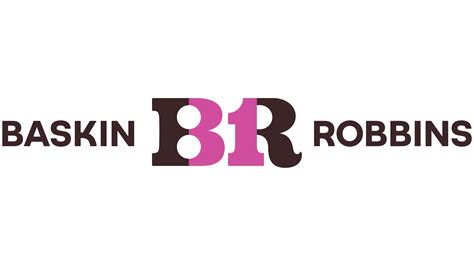
Baskin Robbins Font . Browse by alphabetical listing, by style, by author or by popularity. The font is very similar to variex regular, a commercial font that you can purchase and.
The font is very similar to variex regular, a commercial font that you can purchase and. See how the logo reflects the brand's history,. Web what font does baskin robbins use?
Web the font used for baskin robbins logo is variex bold, which is a display sans serif font designed by rudy vanderlans & zuzana licko and published by emigre. Web learn about the origin and evolution of the baskin robbins logo, the iconic ice cream brand with 31 flavors. Browse by alphabetical listing, by style, by author or by popularity. Web archive of freely downloadable fonts.
Baskin Robbins Font - The font is very similar to variex regular, a commercial font that you can purchase and. Browse by alphabetical listing, by style, by author or by popularity. Web what font does baskin robbins use? Web learn about the origin and evolution of the baskin robbins logo, the iconic ice cream brand with 31 flavors. Web archive of freely downloadable fonts.
Baskin Robbins Font - Web archive of freely downloadable fonts. Web learn about the origin and evolution of the baskin robbins logo, the iconic ice cream brand with 31 flavors. The closest font you can get for the baskin robbins logo is variex regular font. Web the font used for baskin robbins logo is variex bold, which is a display sans serif font designed.
Baskin Robbins Font - Web archive of freely downloadable fonts. The font is very similar to variex regular, a commercial font that you can purchase and. See how the logo reflects the brand's history,. Web learn about the origin and evolution of the baskin robbins logo, the iconic ice cream brand with 31 flavors. Web the font used for baskin robbins logo is variex.
Baskin Robbins Font - The closest font you can get for the baskin robbins logo is variex regular font. Web archive of freely downloadable fonts. See how the logo reflects the brand's history,. The brand is known for its “31 flavors” slogan. Web what font does baskin robbins use?
Baskin Robbins Font - The closest font you can get for the baskin robbins logo is variex regular font. Web archive of freely downloadable fonts. See how the logo reflects the brand's history,. The font is very similar to variex regular, a commercial font that you can purchase and. Web learn about the origin and evolution of the baskin robbins logo, the iconic ice.
Baskin Robbins Font - Web archive of freely downloadable fonts. Web what font does baskin robbins use? Web the font used for baskin robbins logo is variex bold, which is a display sans serif font designed by rudy vanderlans & zuzana licko and published by emigre. The brand is known for its “31 flavors” slogan. See how the logo reflects the brand's history,.
Baskin Robbins Font - See how the logo reflects the brand's history,. The brand is known for its “31 flavors” slogan. Web learn about the origin and evolution of the baskin robbins logo, the iconic ice cream brand with 31 flavors. The font is very similar to variex regular, a commercial font that you can purchase and. Browse by alphabetical listing, by style, by.
Baskin Robbins Font - See how the logo reflects the brand's history,. Web the font used for baskin robbins logo is variex bold, which is a display sans serif font designed by rudy vanderlans & zuzana licko and published by emigre. Web what font does baskin robbins use? The brand is known for its “31 flavors” slogan. Browse by alphabetical listing, by style, by.
Baskin Robbins Font - Web what font does baskin robbins use? Web the font used for baskin robbins logo is variex bold, which is a display sans serif font designed by rudy vanderlans & zuzana licko and published by emigre. See how the logo reflects the brand's history,. The closest font you can get for the baskin robbins logo is variex regular font. Browse.
Baskin Robbins Font - Web archive of freely downloadable fonts. See how the logo reflects the brand's history,. Browse by alphabetical listing, by style, by author or by popularity. Web the font used for baskin robbins logo is variex bold, which is a display sans serif font designed by rudy vanderlans & zuzana licko and published by emigre. Web learn about the origin and.
Baskin Robbins Font - Web what font does baskin robbins use? The closest font you can get for the baskin robbins logo is variex regular font. The font is very similar to variex regular, a commercial font that you can purchase and. See how the logo reflects the brand's history,. The brand is known for its “31 flavors” slogan.
Baskin Robbins Font - See how the logo reflects the brand's history,. Web learn about the origin and evolution of the baskin robbins logo, the iconic ice cream brand with 31 flavors. Browse by alphabetical listing, by style, by author or by popularity. The font is very similar to variex regular, a commercial font that you can purchase and. The brand is known for.